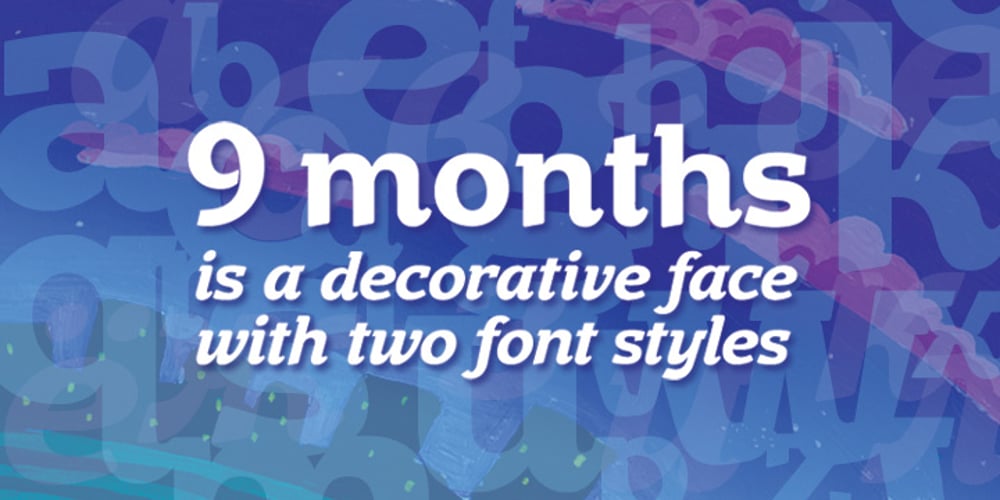
9 Months
9 Months font
9 Months Font Family was designed by Cyrill Tkachev and published by Tkachev. 9 Months contains 2 styles and family package options. 9 months is a decorative face with two font styles. It would look nice on candy and food package, in children’s books and magazines. This work is devoted to the period in my wife’s life when she was pregnant during 9 months with our daughter.